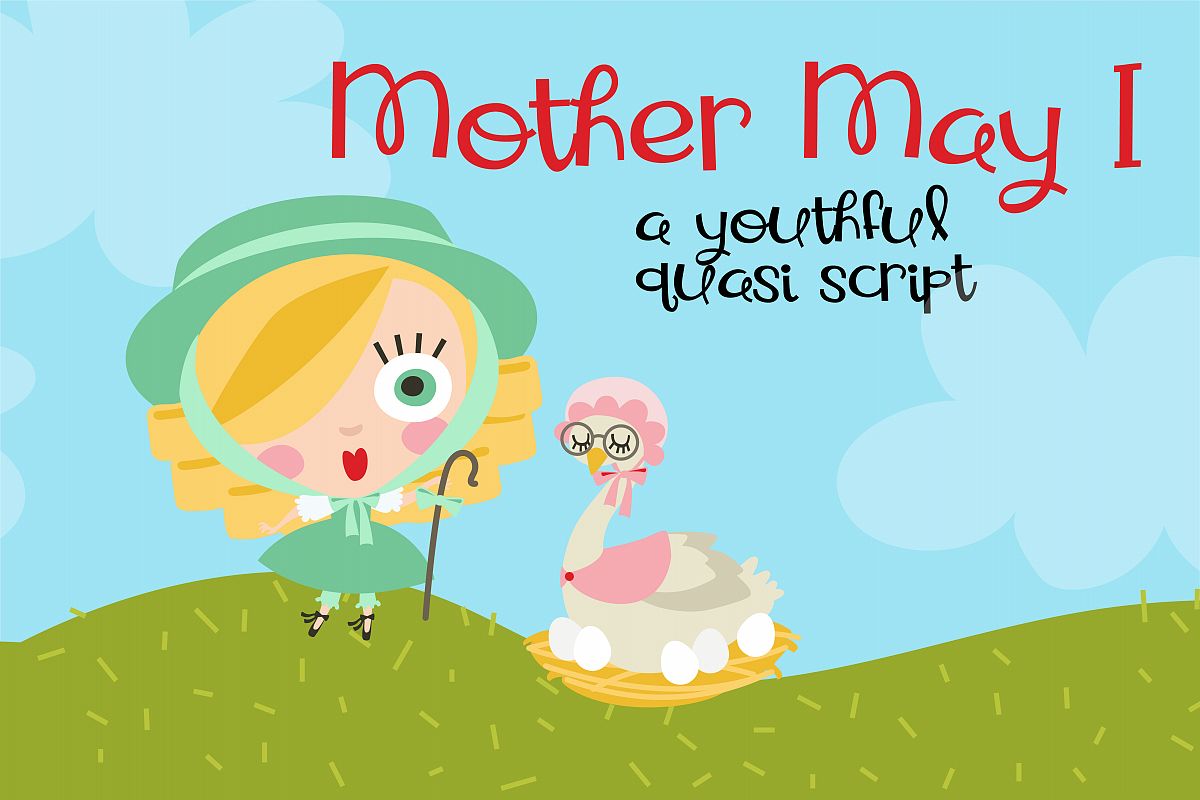
ZP Mother May I
This fun and youthful script font is what we like to call a quasi-script. It has script like tendencies but it is combined with a printed youthful look as well.